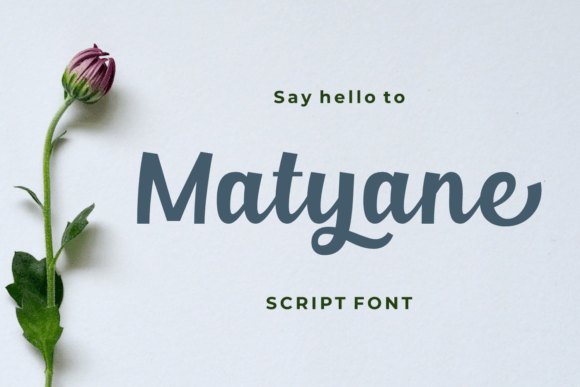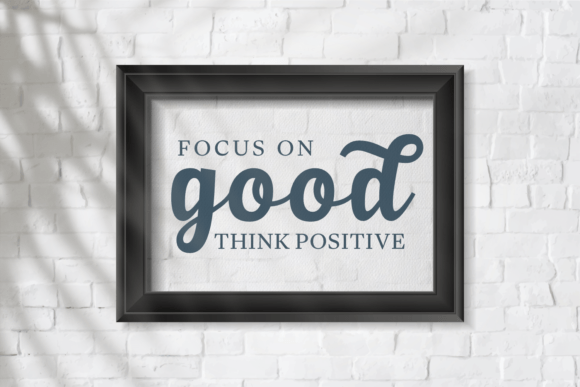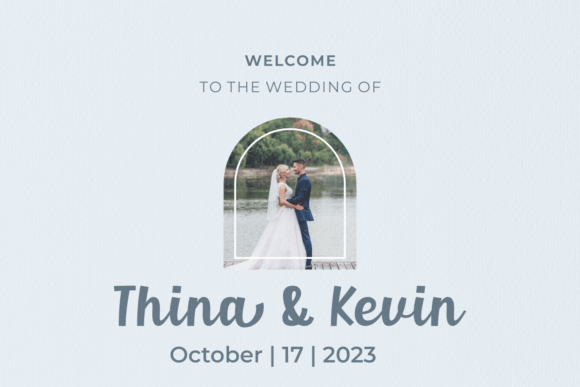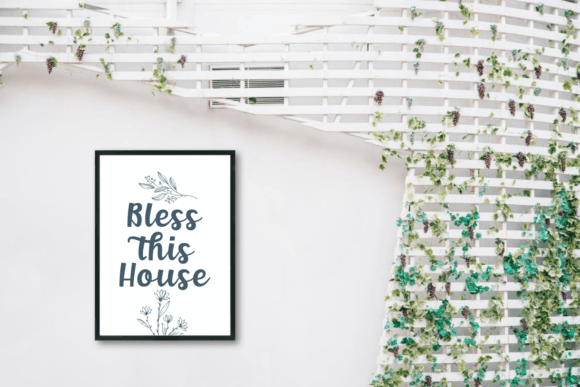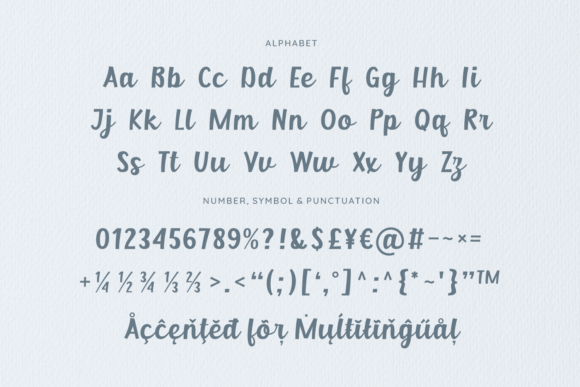
Matyane Font
About Matyane Font
Matyane is an exquisite script font. It possesses the perfect combination of modern and classic, which makes it ideal for wedding invitations, thank you cards, quotes, greeting cards, logos, business cards, and any other design that requires a soft touch.